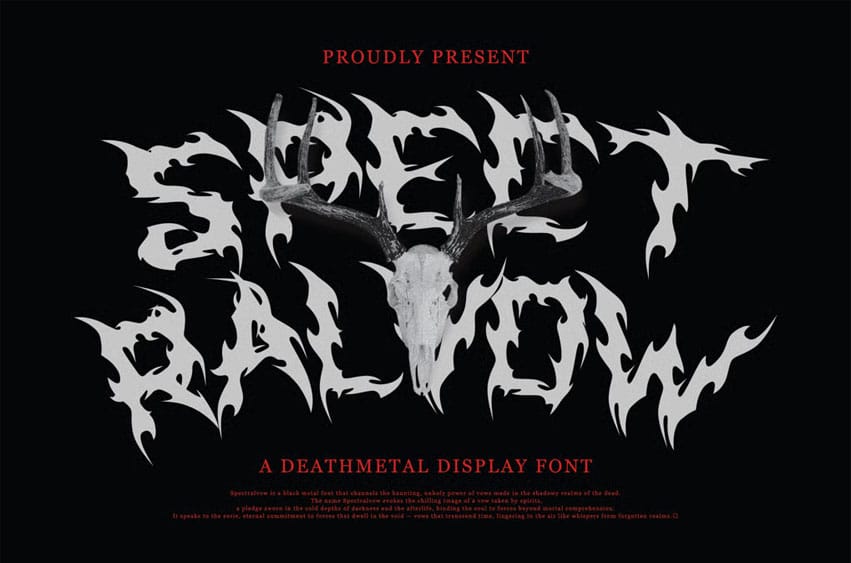
Spectralvow Blackmetal Font is a black metal font that channels the haunting, unholy power of vows made in the shadowy realms of the dead. The name Spectralvow evokes the chilling image of a vow taken by spirits, a pledge sworn in the cold depths of darkness and the afterlife, binding the soul to forces beyond mortal comprehension.
It speaks to the eerie, eternal commitment to forces that dwell in the void — vows that transcend time, lingering in the air like whispers from forgotten realms.